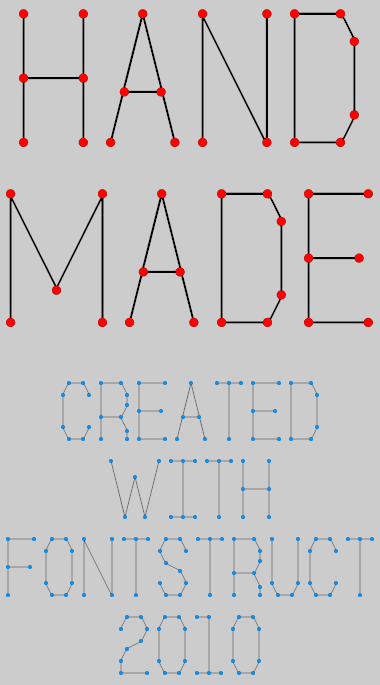
Pushpins
It is supposed to look like pushpins and string. The uppercase contains each glyph with pushpin and string. The lowercase contains just the pushpins to make it easier to change the color of the pins by overlaying. For the numbers, the number contains the pins and string, while SHIFT+number contains just the pins.
Lots of FS 2.0 goodness. Using 2x2 filters, the pins are the full circle bricks and the ultra thin lines were created using several composites.
a clean, simple and effective design. again i will say that this font is deceptive in that it is much more complicated than the simple string and pushpin idea that you have realized here. the sample is good. i imagine if you could enhance it, putting a metallic button effect on the dots and putting a rope or string texture on the lines and perhaps having the background appear a cardboard or some other suitable canvas - that it would portray your idea more truly. nonetheless, much fun.
Aesthetically pleasing and technically brilliant.
For the handmade competition, I had almost the same idea, except my execution was no where near as refined as yours. It was hard getting a good sample so I just let it sit. It is uncanny how alike in thought we were.
BTW, the reverse curve shapes like S and 2 are ve.ro.cool..
Love it.
@funk_king You are right, it is quite a bit more complicated than the end result lets on. Thank you for noticing.
@thalamic Thank you for the compliments. I almost dismissed the idea because it seemed too simple, but I'm glad I went through with it.
The S and 2 are probably my favs.
This is what I was talking about. Dots, string, just the dots in lowercase, etc. Uncanny.
The more I look at this, the more beautiful I find it. There is such a sweet conformance to internal rules which soothes my repetition lovin' brain. Not just that though, the results are perfection. You should do a private version with a larger glyph set.
The 4 needs assistance. A more traditional diagonal stroke 4 might work better for this set.
The canvas is my bed. Printed the text, placed paper on the bed and pushed the pins in. Ripped out the paper. Knotted the thread as specified in the fontstruction. Et voilà.
Wow! Thanks minimum. Your "fs Pin and Thread" is really cool...you're right, the similarities are uncanny.
Thanks so much for the actual "hand made" sample...it is awesome!
minimum, nice realization of the font. i hope you took pictures of the before and during creation of the sample. i think it would be cool to see the pattern with the pins sticking into the paper before you rip it apart as well as the during rip process :)
good idea.
How do you change the color to your fontstruct?
@noahocker: The samples are done using a graphics program such as Photoshop, Paint etc.
@noahocker As p2pnut mentioned, the samples were created using a graphics program, in this case I used Paint.NET.
To make the dots a different color...
1 - Type your characters using the uppercase using one color.
2 - Add a new layer to the image.
3 - Change the text color.
4 - Type the exact same characters using the lowercase.
5 - Align the new layer so the dots line up with the first layer.
Good work aphoria!